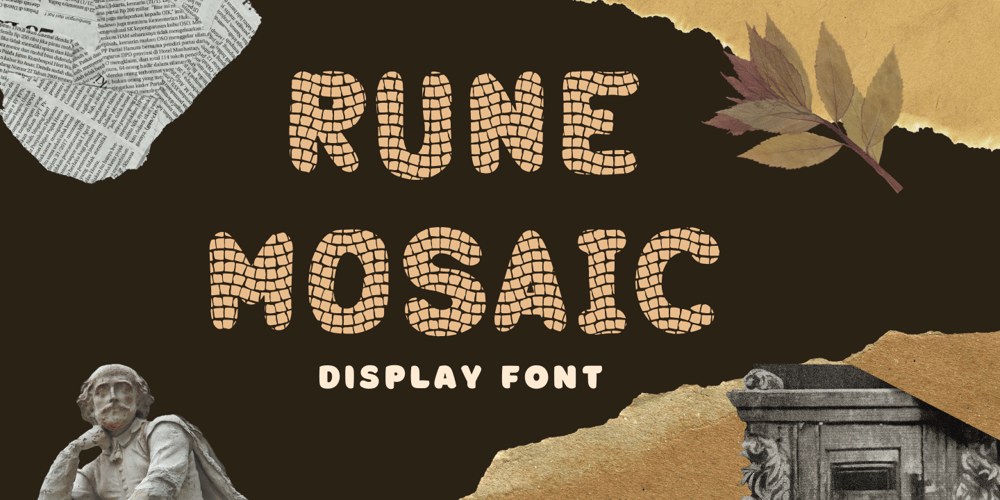
Rune Mosaic Font Family was designed by Fadli Ramadhan Iskandar and published by Attype Studio. Rune Mosaic contains 1 styles and family package options. Introducing Rune Mosaic Font, a captivating display font reminiscent of mosaic artistry. Perfect for flyers and any crafting-related projects, this unique font adds a touch of artistic flair to your designs.Features :- Rune Mosaic Font- Multilingual, US Roman, Latin 1 Support —Hope you enjoy with our font!Attype Studio